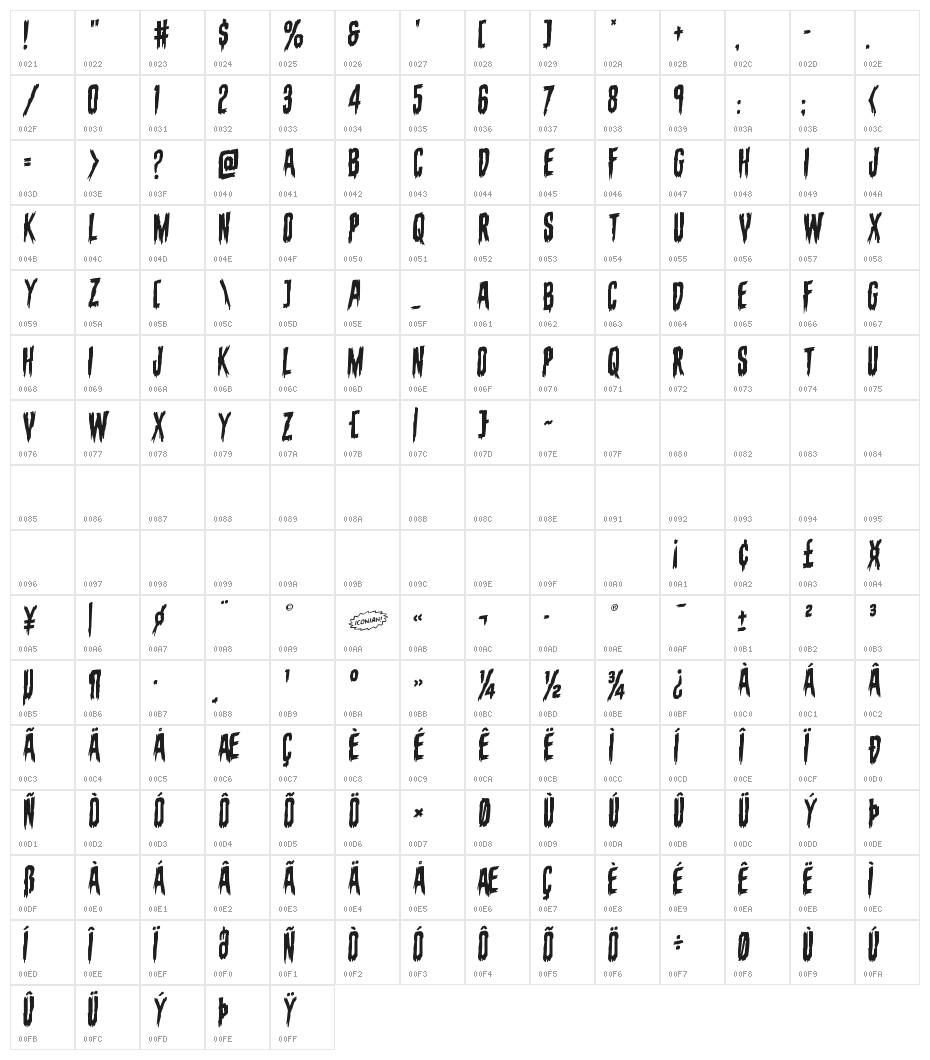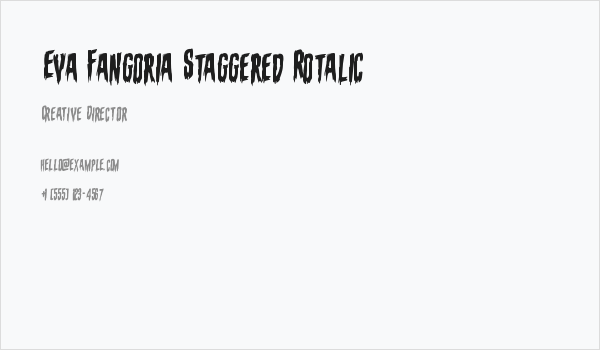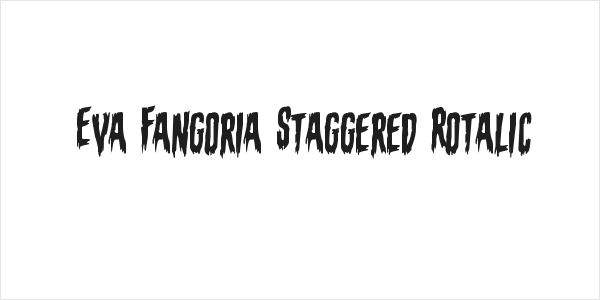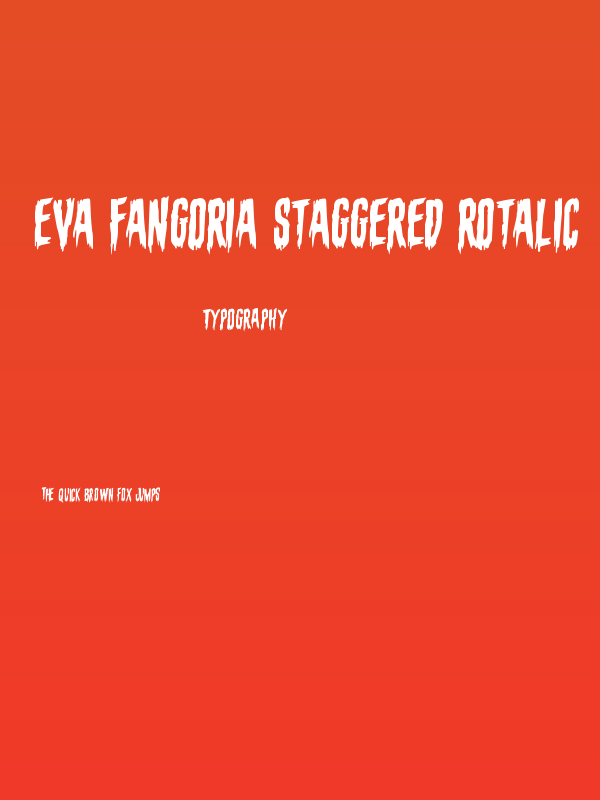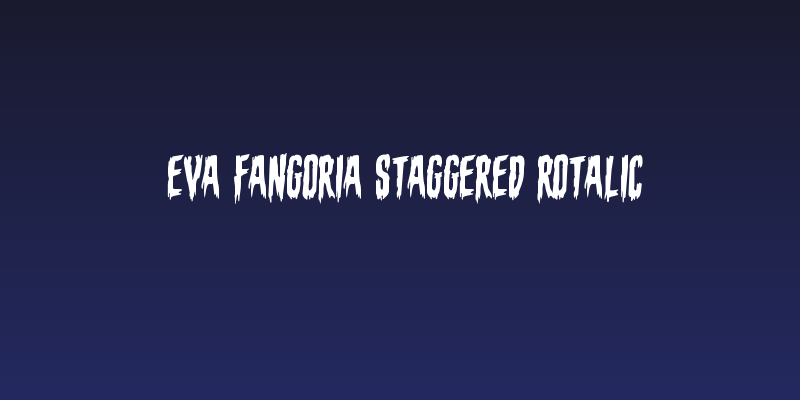
Eva Fangoria Staggered Rotalic Font
Eva Fangoria Staggered Rotalic Description
This font features a bold and jagged design, reminiscent of horror or thriller themes. The characters have an irregular, torn appearance, with sharp edges and varying stroke thickness that create a sense of movement and chaos. The uppercase and lowercase letters maintain a consistent style, with exaggerated serifs and a slightly condensed form. Numbers and special characters follow the same aesthetic, making the font suitable for dramatic and eye-catching designs. Its unique style is perfect for projects that require a spooky or edgy vibe.
Proposed ProjectsIdeal for Halloween posters, horror movie titles, themed event invitations, or any design needing a dramatic, spooky touch.